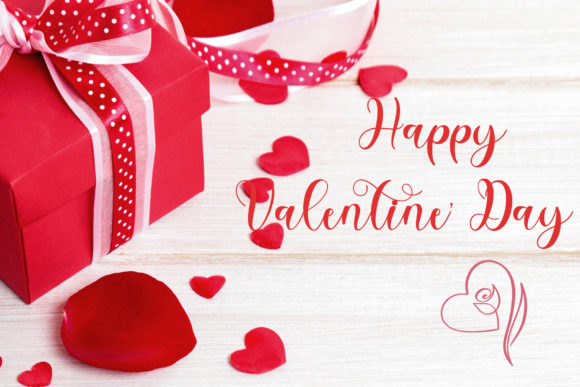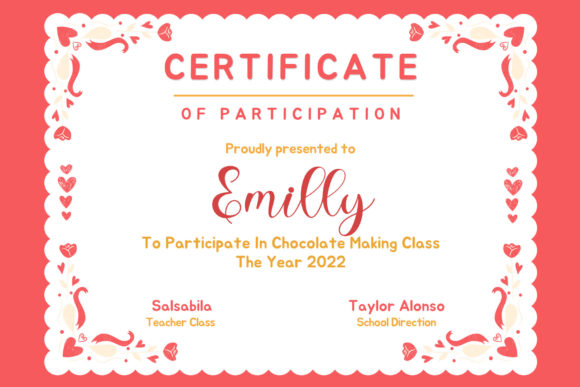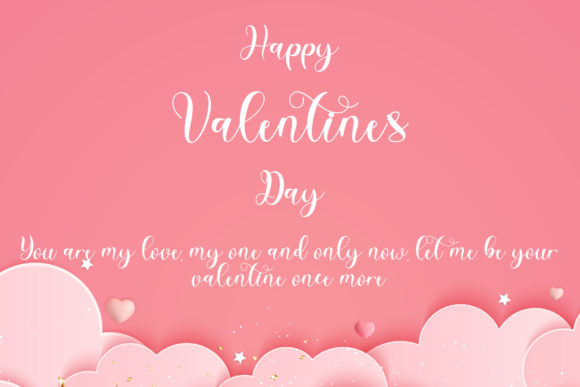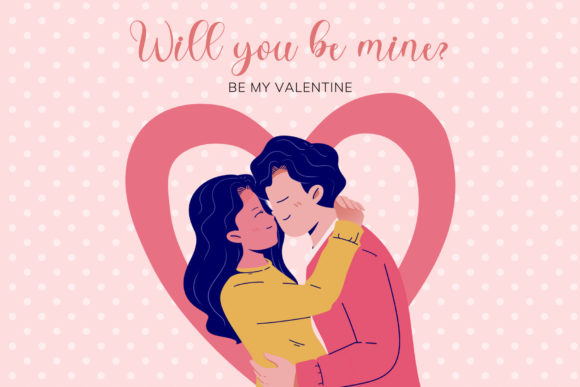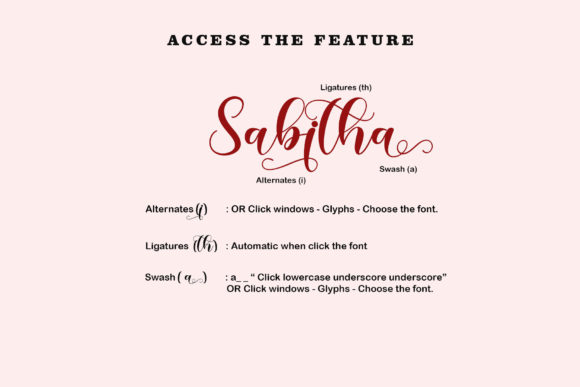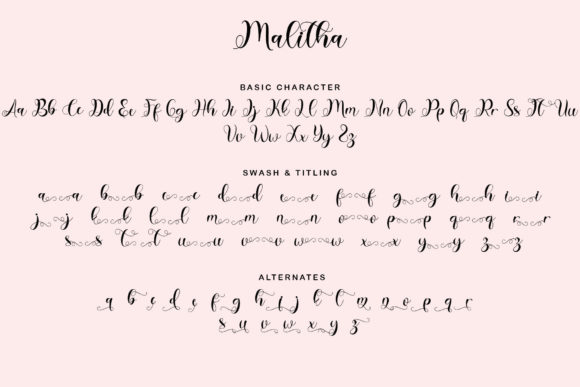
Introduction to Malitha Font
As a designer, you know the feeling of staring at a blank canvas, waiting for inspiration to strike. It’s that moment when you finally see the perfect combination of colors, shapes, and typography come together, and your creative project is born. For me, that moment often starts with the perfect font – one that’s elegant, refined, and effortlessly conveys the emotion I’m trying to convey.
Enter the Malitha Font, a delicate and flowing handwritten font that has captured my heart. With its beautiful, well-balanced characters, it’s no wonder why this font has become a staple in the design community. Whether you’re working on a free download project or a high-end commercial design, Malitha Font is sure to elevate your work to the next level.
What sets Malitha Font apart is its PUA encoding, which makes it easy to access all the amazing glyphs and ligatures. This means you can add a touch of sophistication to your design with a transparent background or create a beautiful, hand-drawn look with ease.
Key Features of Malitha Font
- Includes a wide range of characters, including uppercase and lowercase letters, numbers, and punctuation marks, to support various languages.
- Designed with a unique and modern style, perfect for adding a touch of elegance to any creative project.
Honest Review: Malitha Font
I recently came across the Malitha Font and was excited to give it a try for my next creative project. As a designer, I appreciate high-quality fonts that can elevate my work, and Malitha Font definitely fits the bill.
What works well: ✨ The font is available for free download, making it a fantastic resource for designers on a budget. The design is modern and sleek, with a clean and minimalist aesthetic that’s perfect for digital projects. I also appreciate the transparent background, which makes it easy to layer over images or backgrounds.
Overall, I’m impressed with the Malitha Font and would recommend it for personal projects or design students looking for a free resource. However, for commercial projects or more complex designs, you may want to consider purchasing a licensed font or exploring other options.
- Modern and sleek design
- Limited weight options
Tips for Getting the Most Out of Malitha Font
For the best results, use the Malitha Font in conjunction with a high-quality image or background to create a visually appealing design. Experiment with different font sizes, colors, and styles to find the perfect combination for your project.
The Malitha Font is ideal for creative projects, such as:
Brochures and flyers
Business cards and stationery
Website headers and titles
Social media graphics and ads